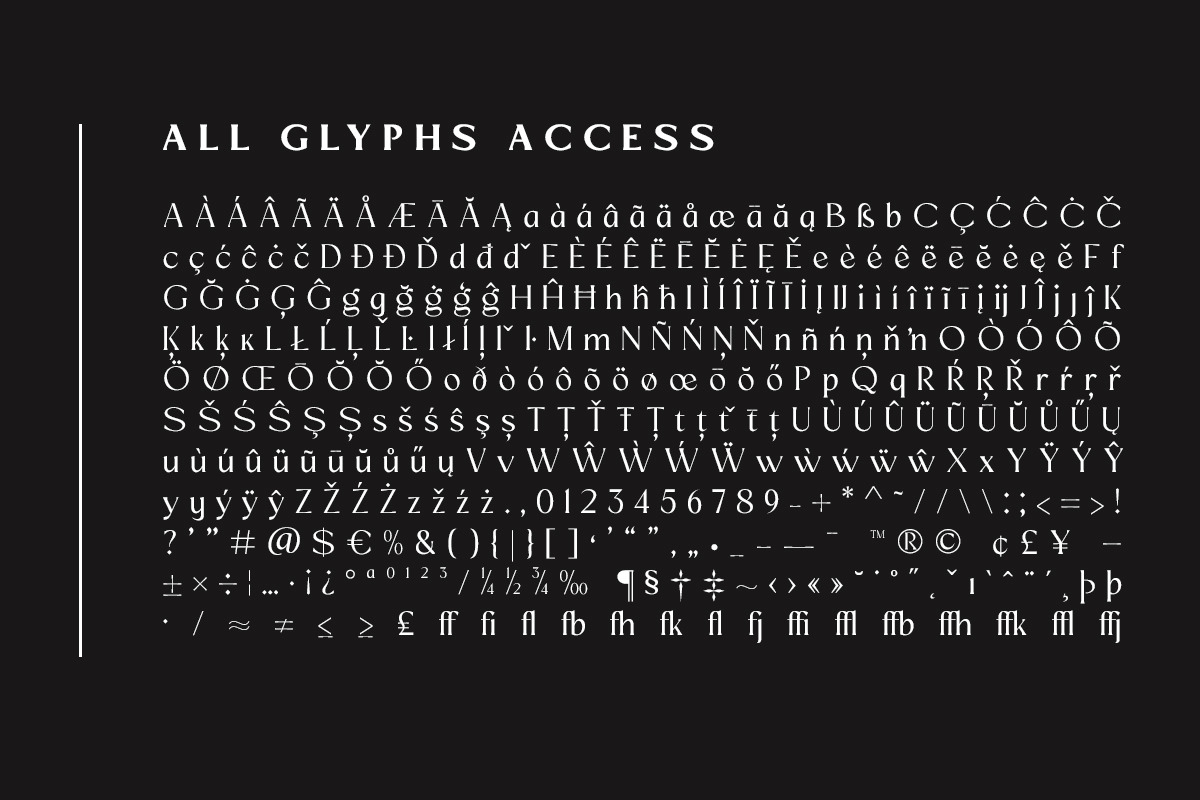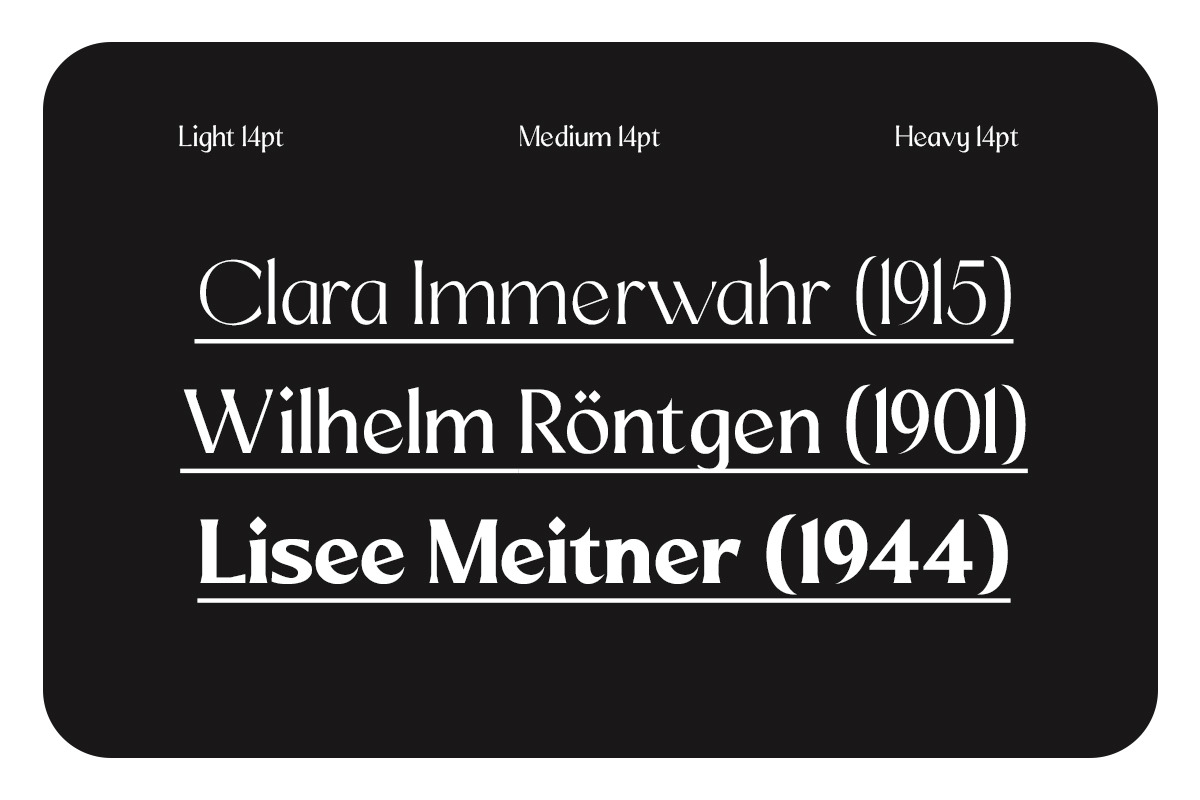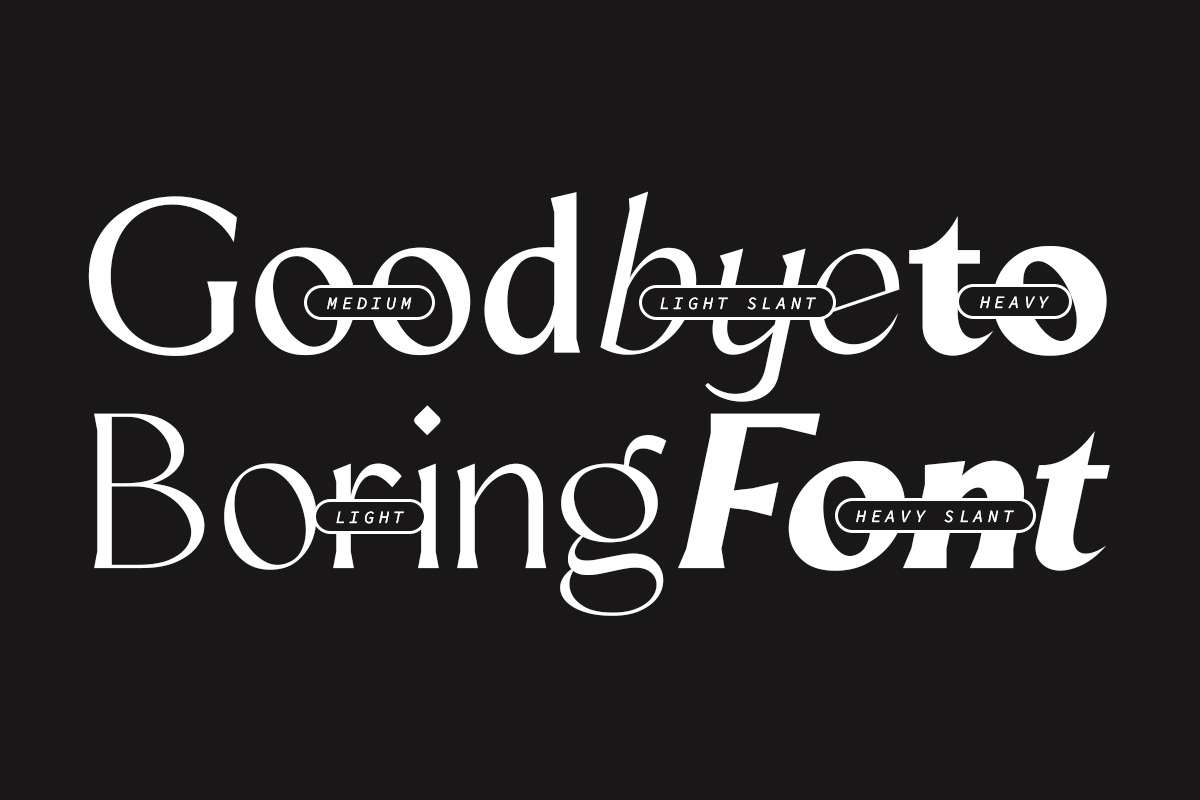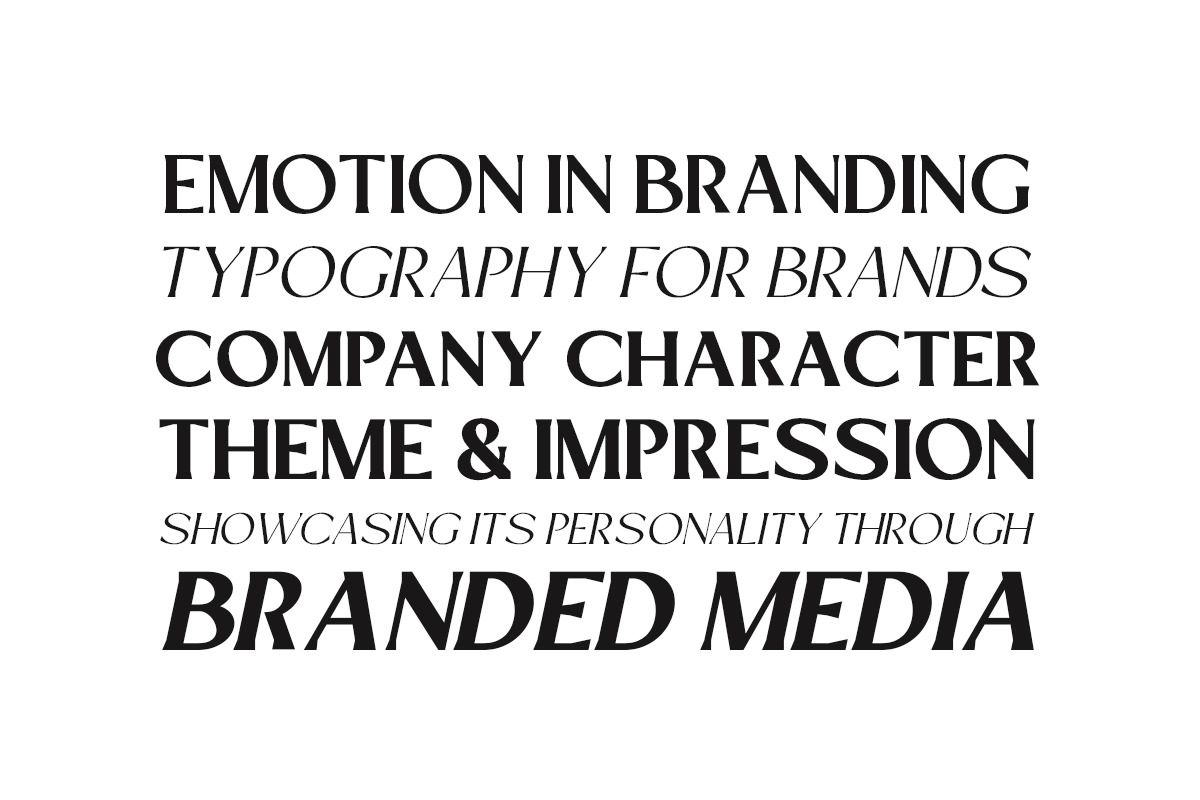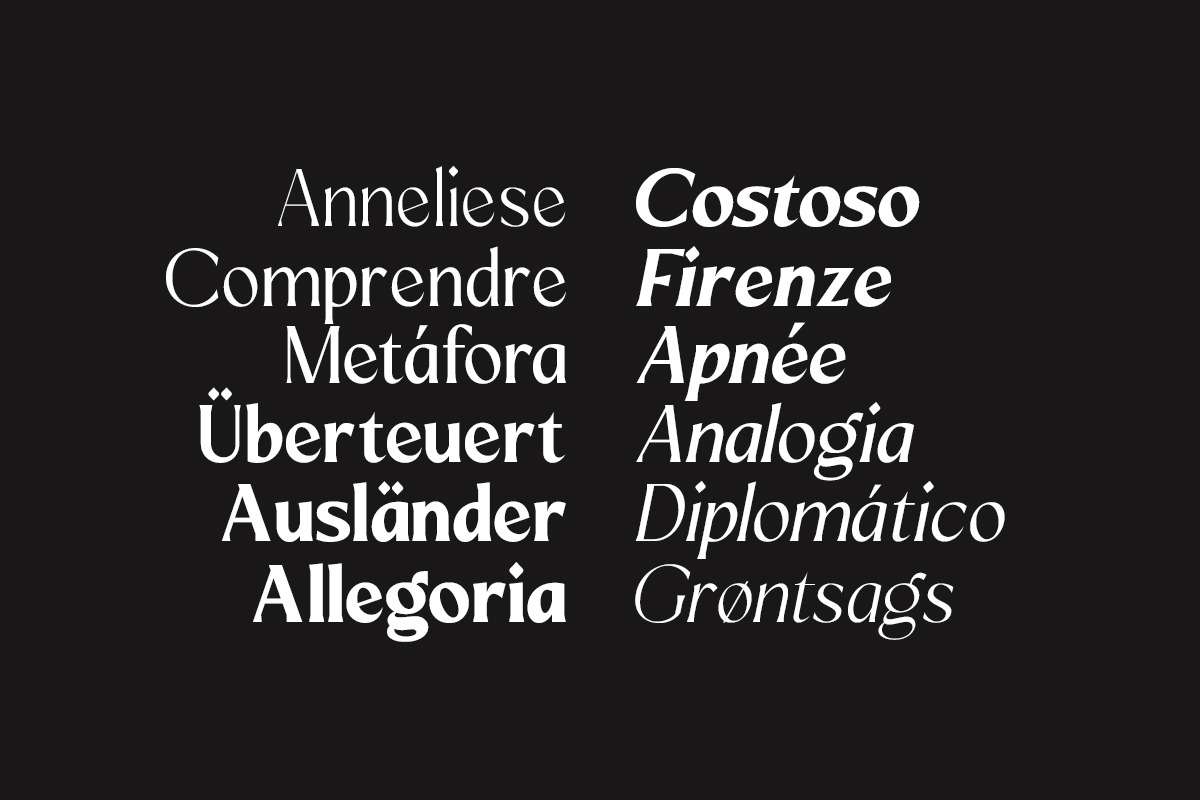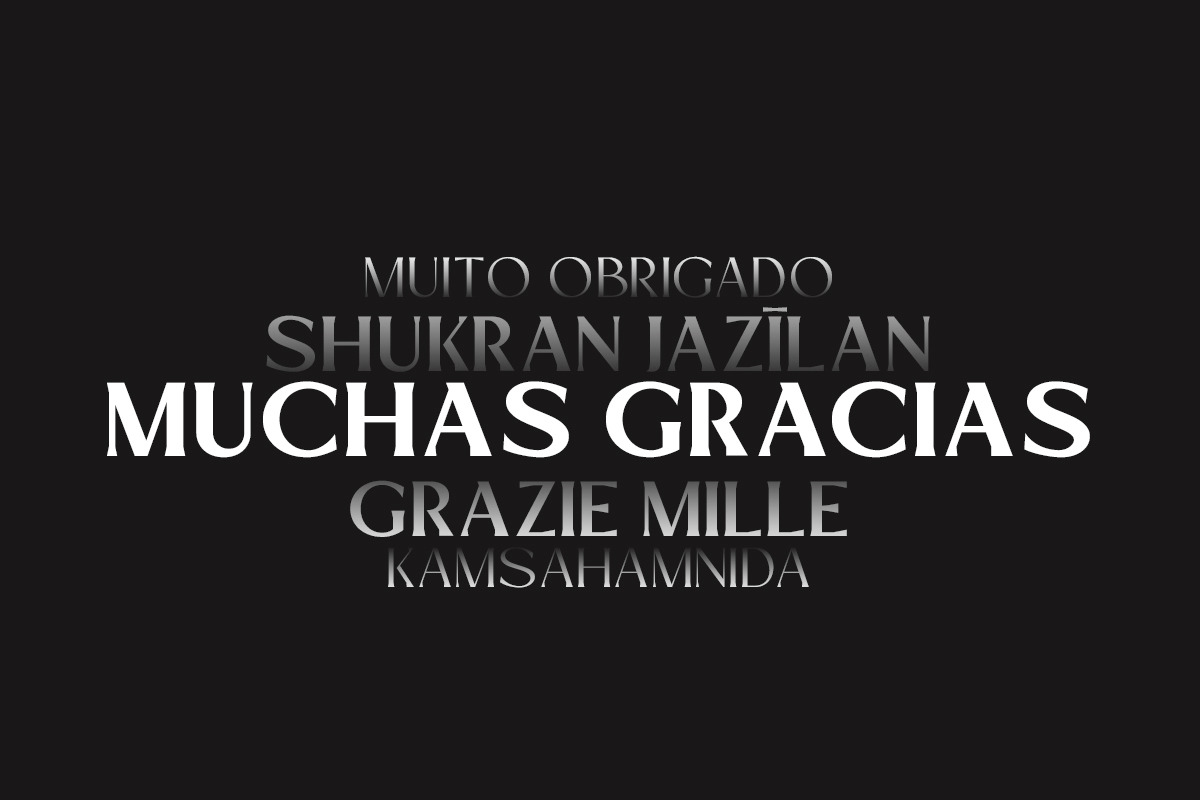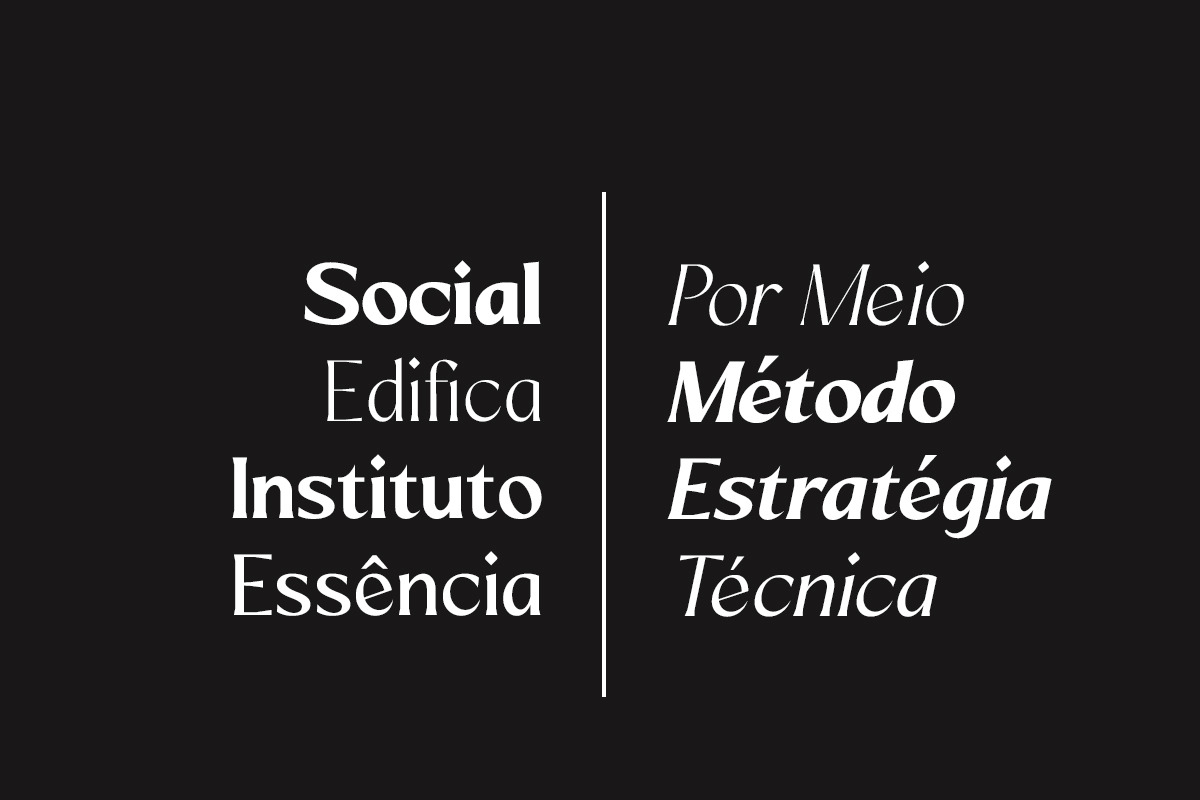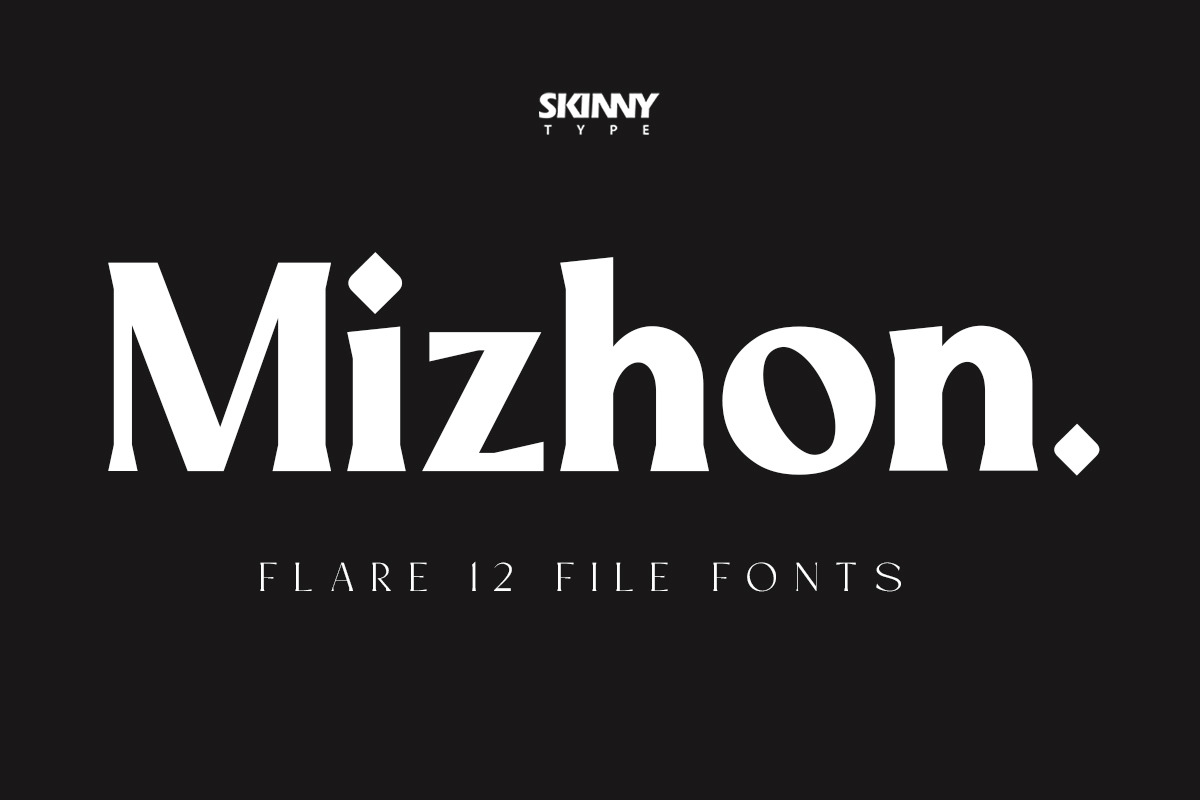
Mizhon Flare | 12 Fonts
Mizhon Flare sits between serif and sans, defined by gently expanding stroke endings that create dynamic visual tension. The flared terminals feel expressive and contemporary, offering character without the formality of traditional serifs. This style carries a sense of motion and personality, making it perfect for bold branding, creative campaigns, and statement typography. It delivers uniqueness while maintaining readability and structural balance.